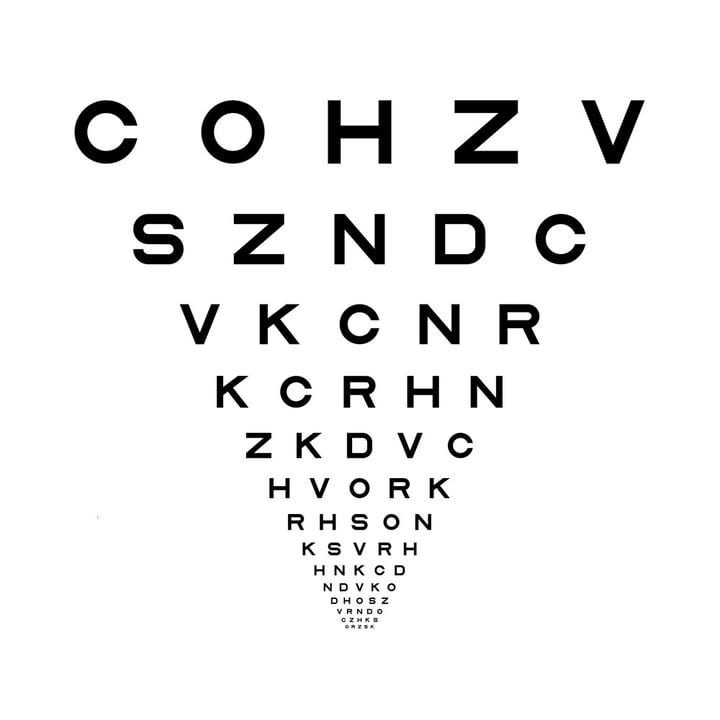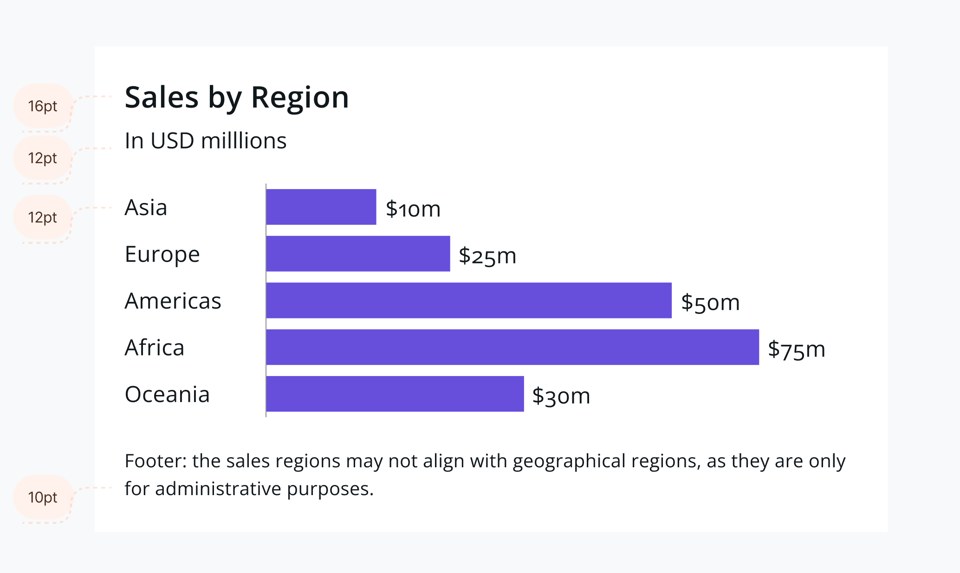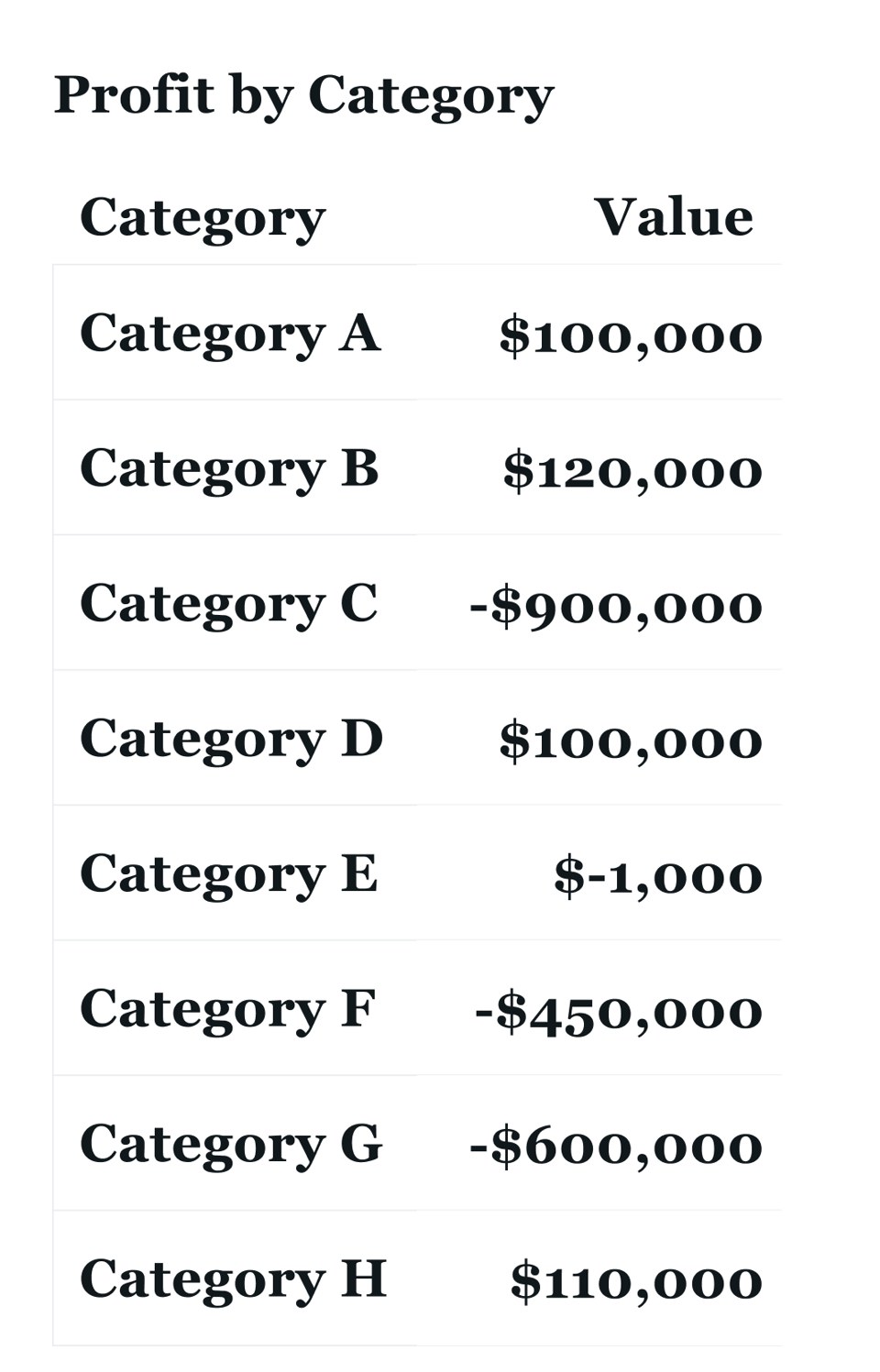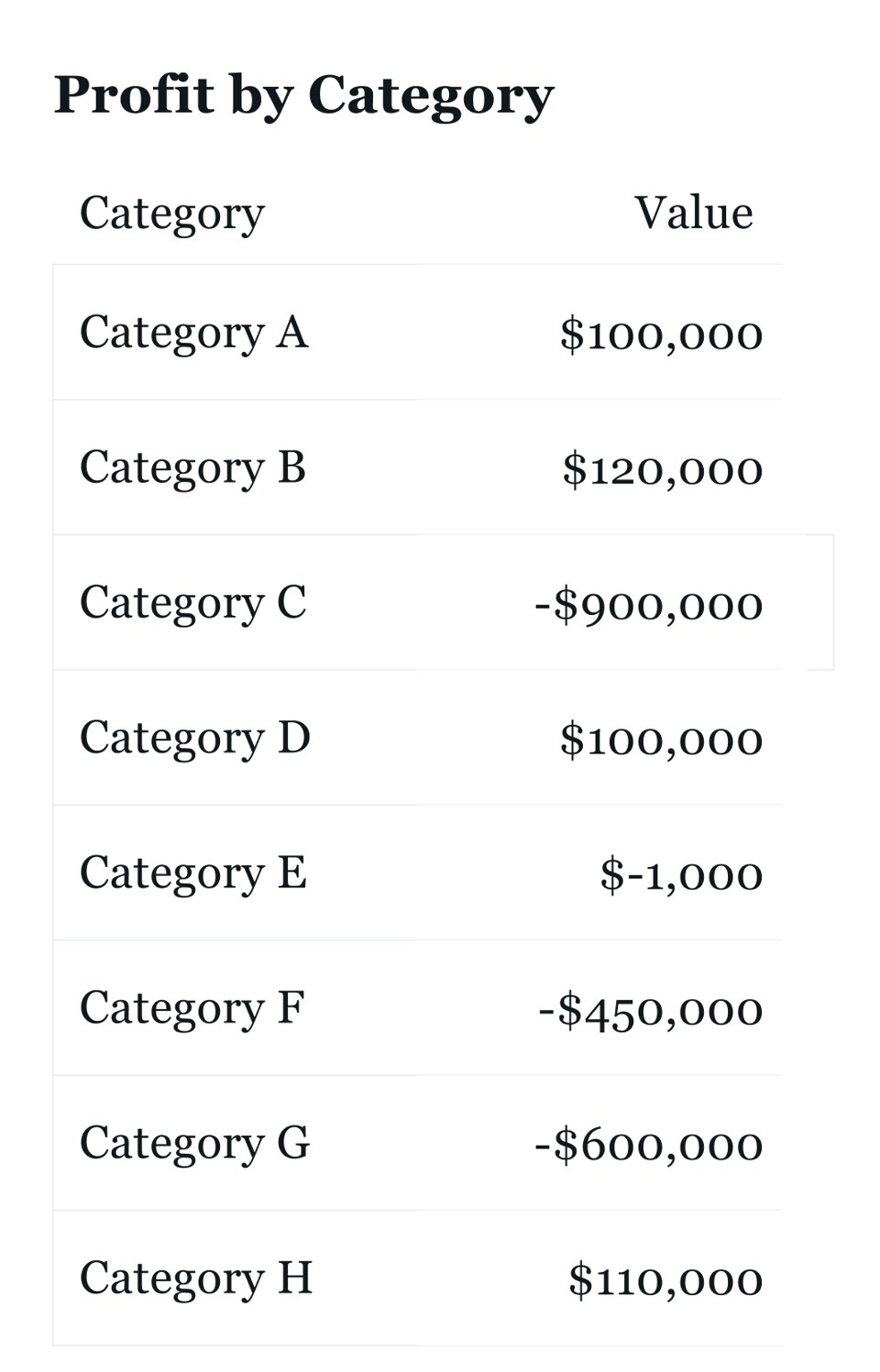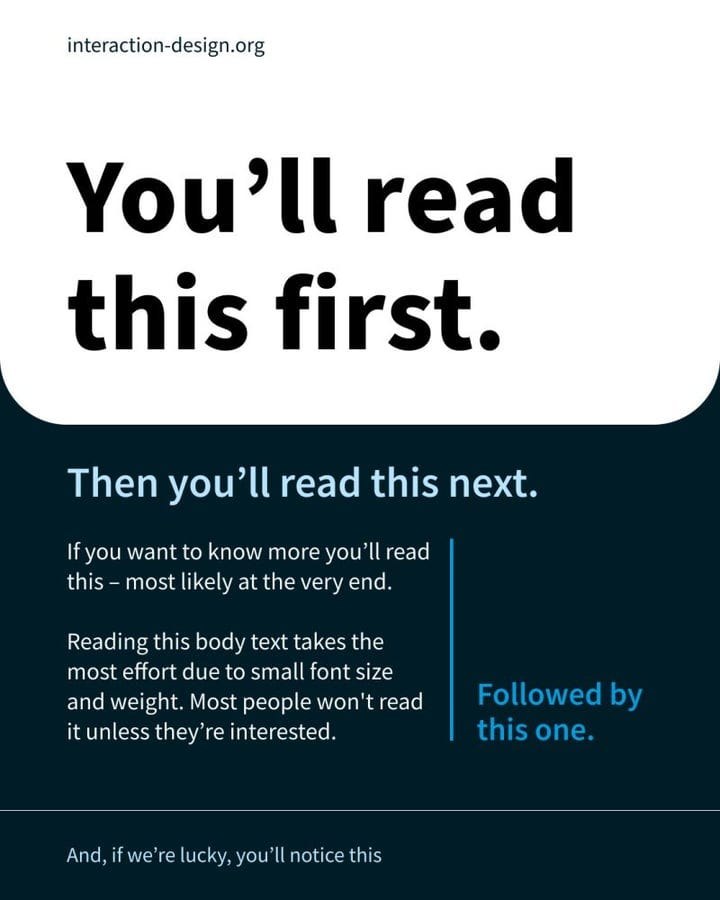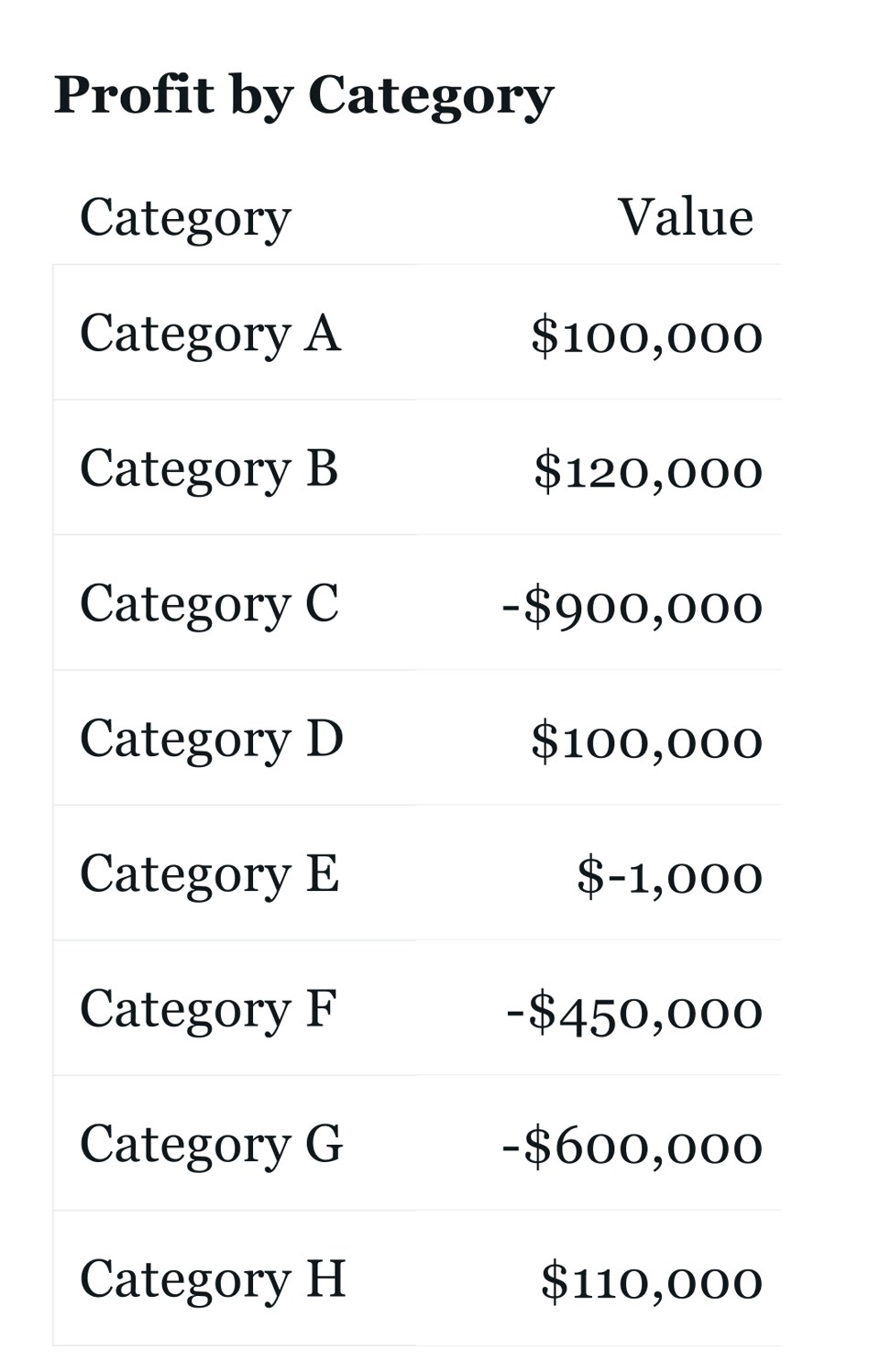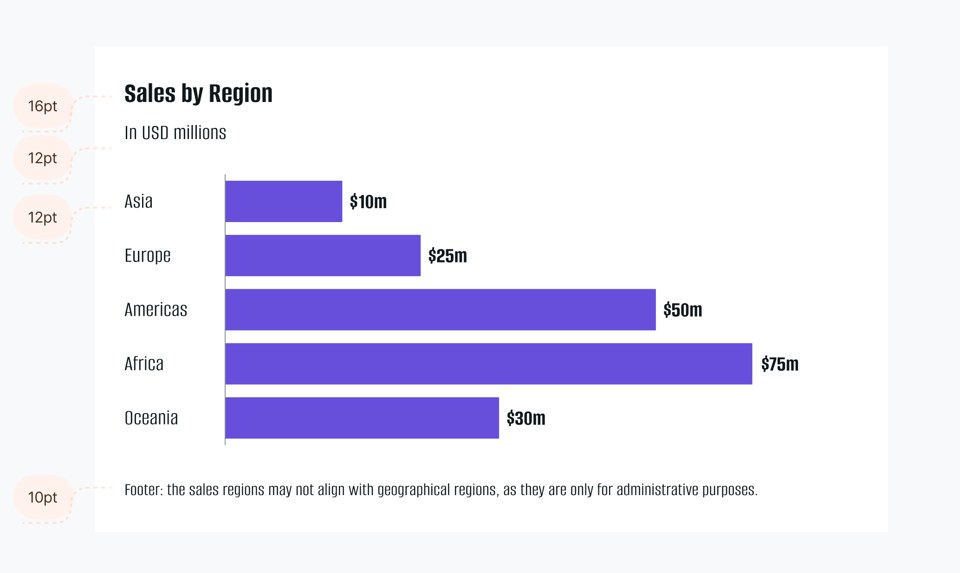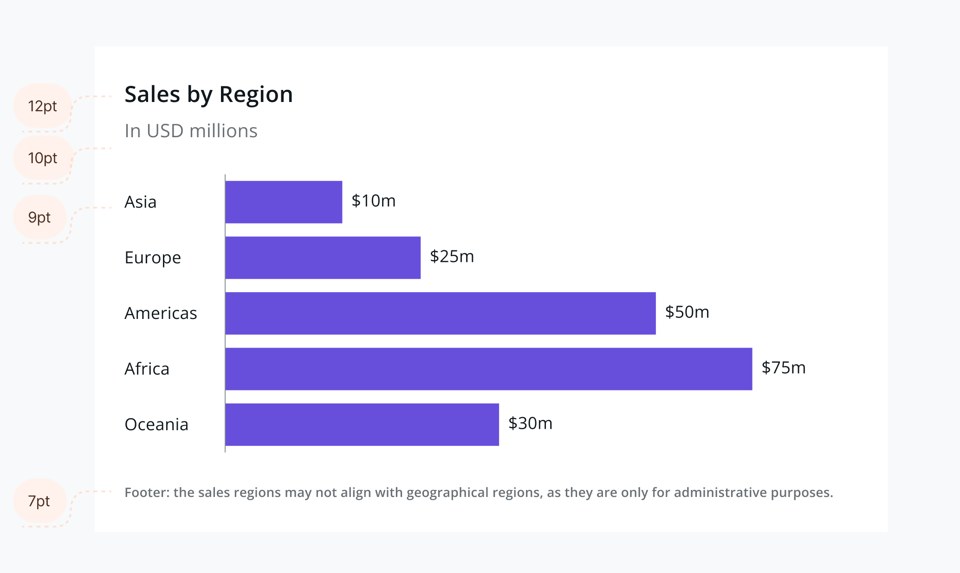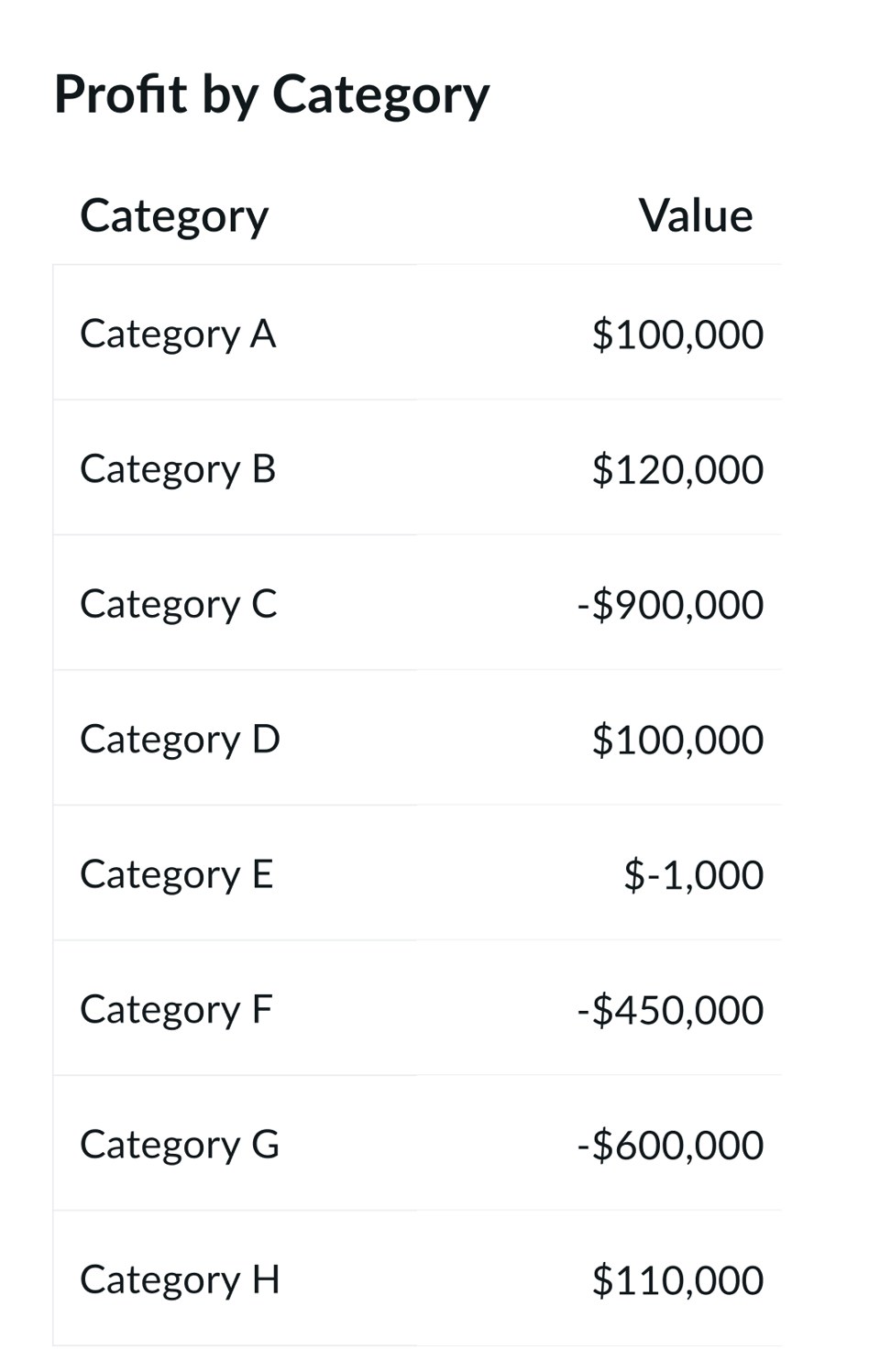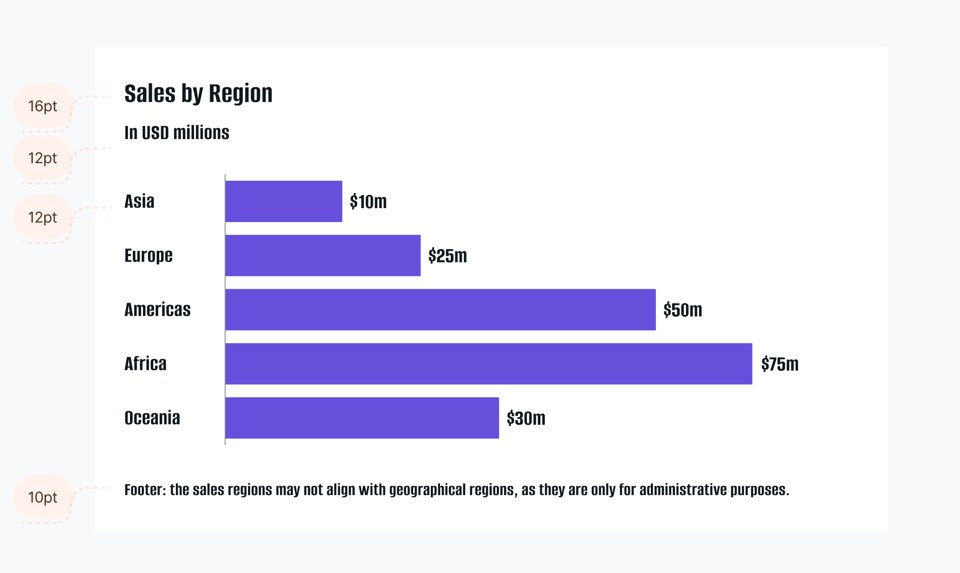
Design Matters #8 - What The Font?!
Illustration by T. from Data Rocks
Welcome to issue #8 of the series Design Matters.
In this series, I’ll share with you how design can help your dashboards go from average to awesome.
The goal of this series is to shed light on how design plays an indispensable role in data analytics — not just in making things look pretty but in affecting understanding, communication, and decision-making.
Data Visualisation is about communication. We usually focus a lot of time talking about the shapes we choose to use, the colours we’ll apply to them, and how to place elements best on screen. But there is an often forgotten element that can make or break your design. Typography.
Maybe it’s because, unlike with design tools, BI tools don’t allow for modifications and tweaks when it comes to fonts. Perhaps it’s because marketing and branding departments make visual guidelines choices and apply them to all internal communications — and with that, type choices are already made, even if they don’t fit well with data displays.
Whatever the reason, we see little about how typography is one of the most important elements in a dashboard when it comes to enabling its primary function — communication.
And if you think this is designer talk and typography doesn’t matter that much, just have a look at what we’re left with if we remove all typography from our dashboard mockup from last week:
The finished sales dashboard from the previous issue with every piece of text stripped out. The purple sidebar, empty filter boxes, coloured arrows, sparklines, bars, small multiples and tinted table cells all remain, but with no titles, labels or numbers none of it means anything.
Even if we don’t give it much thought, text makes some of the most informative elements in a dashboard: the numbers. They are type, too. With them, we have functions like KPIs, comparators, table values, labels, and axis markers.
So today, I’ll give you a primer about the typography concepts that I most use when developing dashboards and what makes a good dataviz typeface.
Typography Semantics
I believe that learning terms and definitions in design can help us a lot because it enables us to articulate our decisions better. In the same way I did with colour, I’ll start by explaining the basic concepts and terms I’ll refer to every time I talk about typography. It is a rather technical and detailed field, so it has lots of specific terms. This is just a brief list of the things I believe affect dataviz designers the most.
1. Typeface or Font
These two terms are often used interchangeably, but they are different. A Typeface is a set of characters developed to be used together in harmony. Arial is a typeface, as is Times New Roman.
A Font is a specific form in which a typeface is delivered. Arial Light, 12pt, is a font. Times New Roman, Regular, Italic, 16pt is a font.
So, when you look at someone’s work, and you like how they chose a collection of different fonts (sizes, weights, sometimes even more than one type family), you can say that you like their “ typeface choices”. But if you want to request a particular functional adjustment, you can say, “ The font you used for the headers, make them a little bit bigger”.
2. Varying a typeface
When you download a typeface, you may see that there are multiple versions you can choose from. They can be Light, Bold, Black, Regular, Medium, and so on. What you are looking at is a t ype family — a collection of variations of the same typeface.
The Google Fonts specimen page for Roboto, showing the same sentence set repeatedly down the page in each weight and style of the family — Thin, Thin Italic, Light, Light Italic, Regular, Regular Italic, Medium and Medium Italic — so the family’s variations can be compared.
There are two fundamental ways you can vary a *font *— using weight and size.
Weight is the thickness of the lines used in a font. Usually defined by words like Thin, Light, Regular, Medium, Semibold, Bold, Extrabold and Black.
A font can also vary by slant. And when we slant a font, we call it italics. Italics can exist in any font-weight.
A well-designed typeface usually makes small adjustments in their italicised versions to make them look and feel more fluid.
A font specimen page for Open Sans showing the line “Roger, hungry: ate 236 peaches & cantaloupes in 1904!” repeated in Light Italic, Regular, Italic, Semibold, Semibold Italic, Bold, Bold Italic, Extrabold and Extrabold Italic.
Size is the variation in the height of a character, usually measured in Points (pt) — although some tools let you adjust this in Pixels (px). Beware, pt and px are different measures! A font in 16px is not the same as a font in 16pt.
I hope these examples can help you make better typography choices in your visualisations!
On the next issue, I’ll dive a bit deeper, creating a type scale to use in a dashboard and exploring the typeface options we have in Power BI and Tableau.